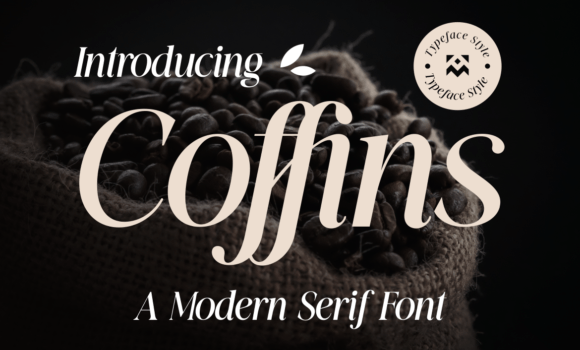
Coffins Font – Free Download Introduction to Coffins Font Coffins is a stylish font that adds a touch of mischief and uniqueness to any project. 📸 Preview Gallery 3 images 📌 Product Name Coffins Font 👤 Author Marvadesign 📂 Category